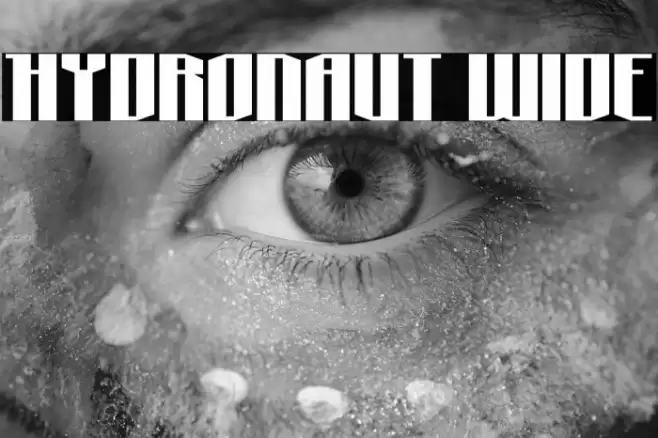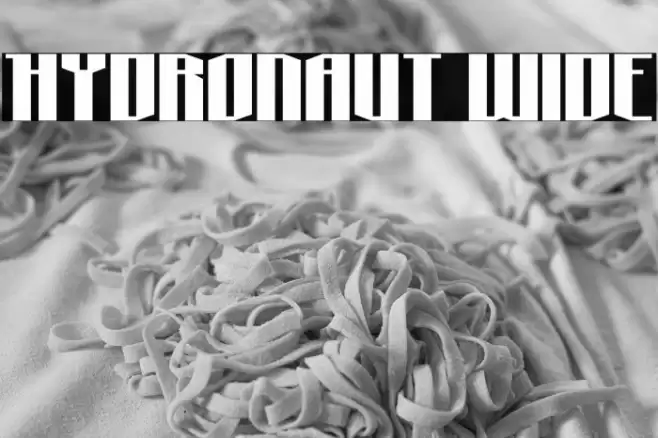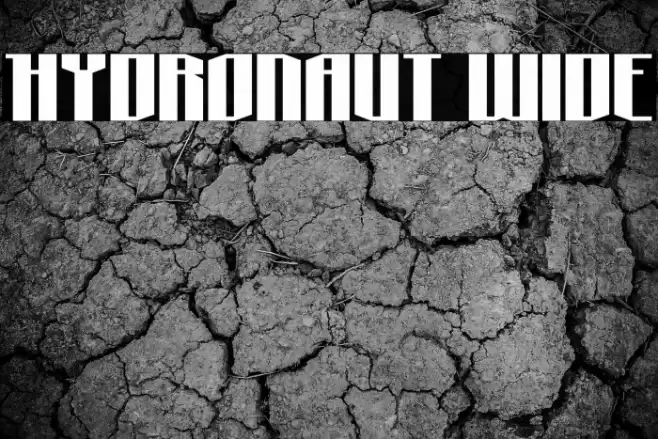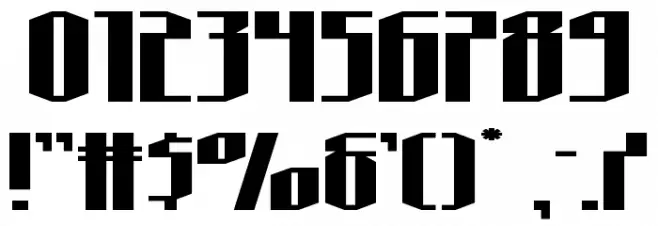
Hydronaut Wide Font
Hydronaut Wide Description
This font features a bold and futuristic design with sharp, angular edges and a wide stance. The characters are uniformly wide, giving a sense of stability and strength. The uppercase letters are particularly striking, with a geometric style that emphasizes vertical and horizontal lines. The lowercase letters maintain the same boldness, ensuring consistency across the typeface. The numerals are equally bold and geometric, fitting seamlessly with the overall design. Special characters are designed with the same angular and bold characteristics, making them stand out. This font is ideal for projects that require a modern and impactful look.
A bold, wide, and angular font with a futuristic and geometric style from Uncategorized fonts.
- Proposed Projects: Ideal for sci-fi themed designs, video game titles, posters, and branding that requires a modern and bold statement.
- Width: Expanded
- Overall Style: Futuristic